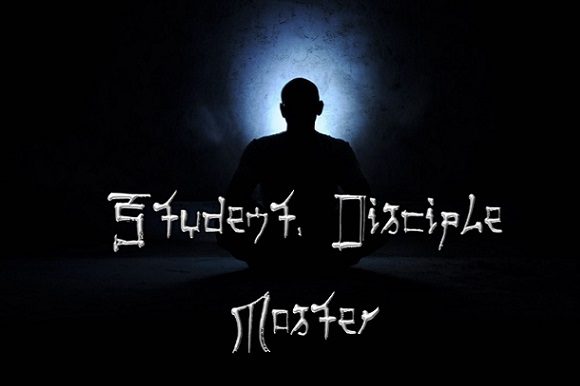
Introduction to Fast Monk Ink Font
As a designer, have you ever been stuck in a creative rut, searching for the perfect font to elevate your project? I know I have. It’s that moment when you need a font that speaks to your audience, and Fast Monk Ink Font comes to mind. This bold, Chinese-inspired font is the perfect solution for any design project that requires a statement piece.
With its incredibly bold feel, Fast Monk Ink Font is a game-changer for designers. It’s a thicker version of the original Fast Monk, making it perfect for projects that require a high-quality, eye-catching font. Whether you’re working on a creative project or just need a design resource, Fast Monk Ink Font is a valuable addition to your toolkit.
Key Features of Fast Monk Ink Font
- Unique, handwritten design ideal for creative projects and artistic expressions.
- High-quality font with a transparent background, making it perfect for designing with a subtle, elegant look.
- Designed with a high-resolution (300 DPI) to ensure crisp and clear text, even when scaled up or down.
- Perfect for use in a variety of creative projects, from digital art to print materials, and from invitations to editorial content.
Honest Review: Fast Monk Ink Font
As a designer, I’m always on the lookout for high-quality design resources that can elevate my creative projects. The Fast Monk Ink Font caught my eye with its unique, hand-drawn style and versatility.
- ✨ The font’s high quality and attention to detail make it perfect for creating unique, eye-catching designs.
- ⚠️ The font’s bold weight can be a bit difficult to read at smaller font sizes.
Overall, I’m impressed with the Fast Monk Ink Font and its potential to add a personal touch to my designs. While it may have some limitations, its unique style and high quality make it a valuable addition to any designer’s toolkit.
The Fast Monk Ink Font is ideal for various creative projects, including:
- Presentation design
- Document design